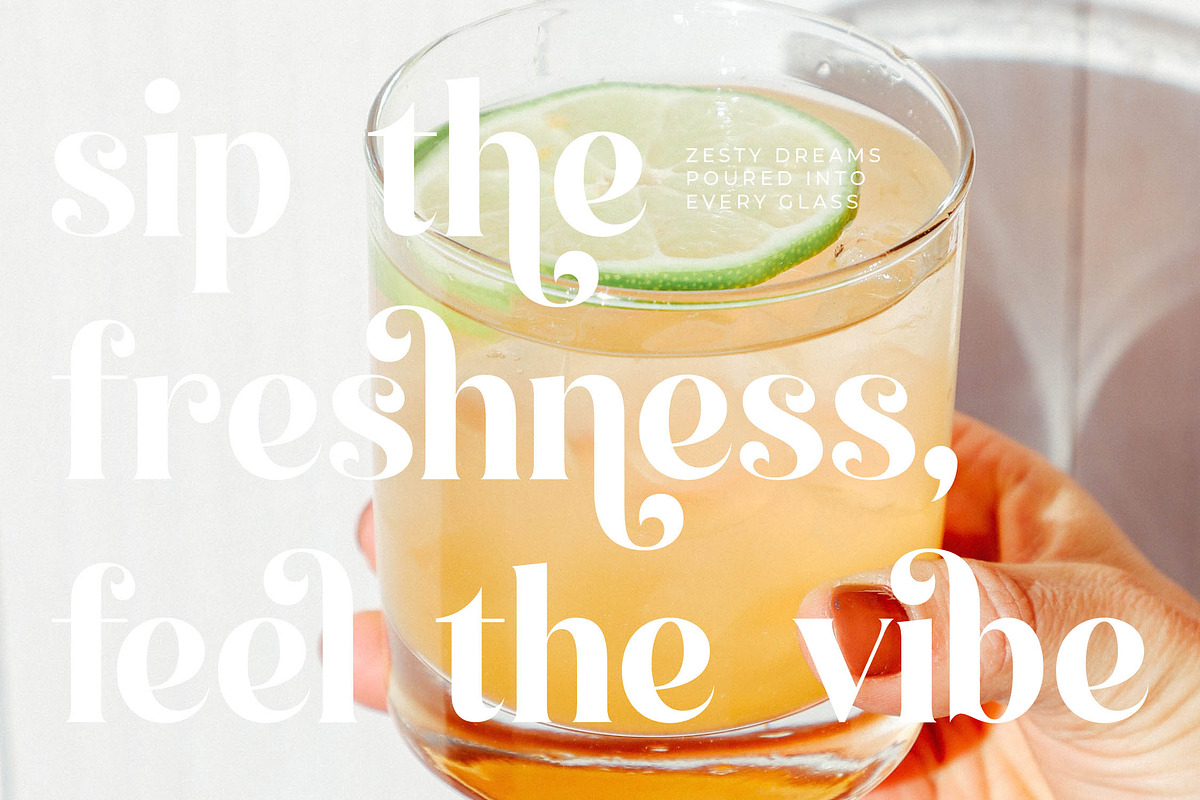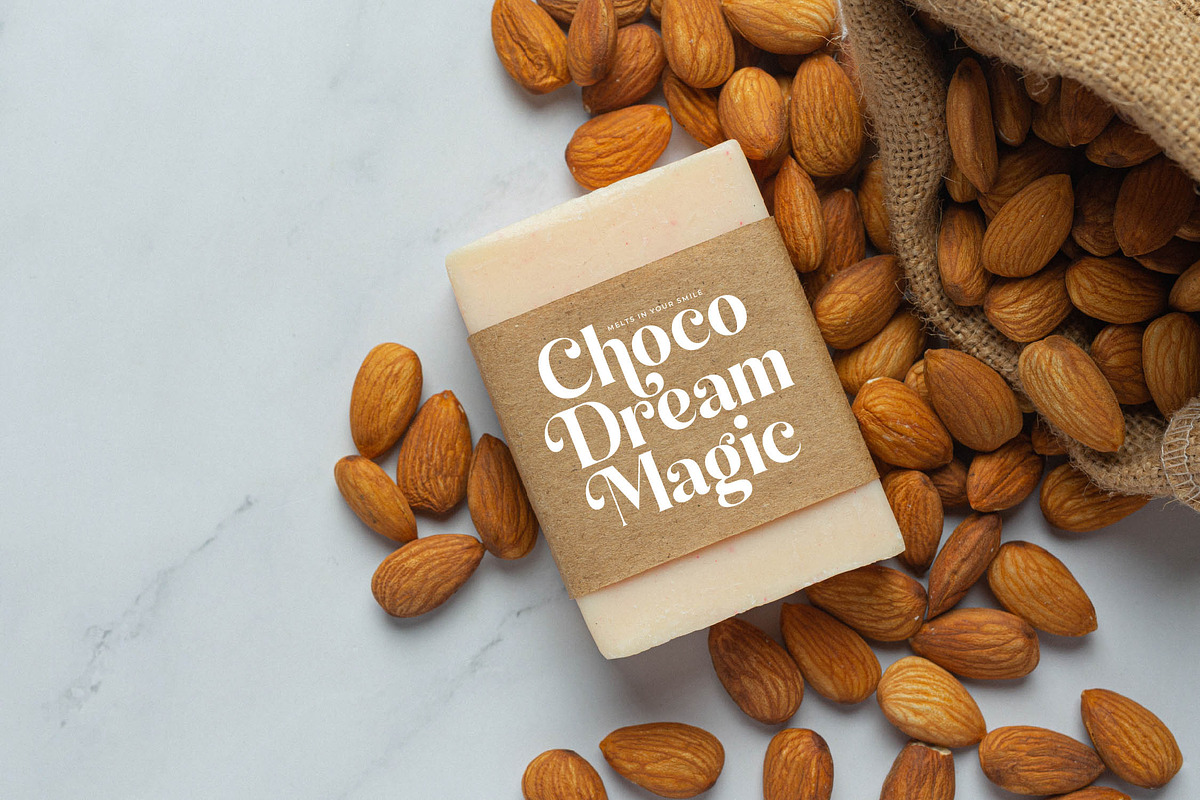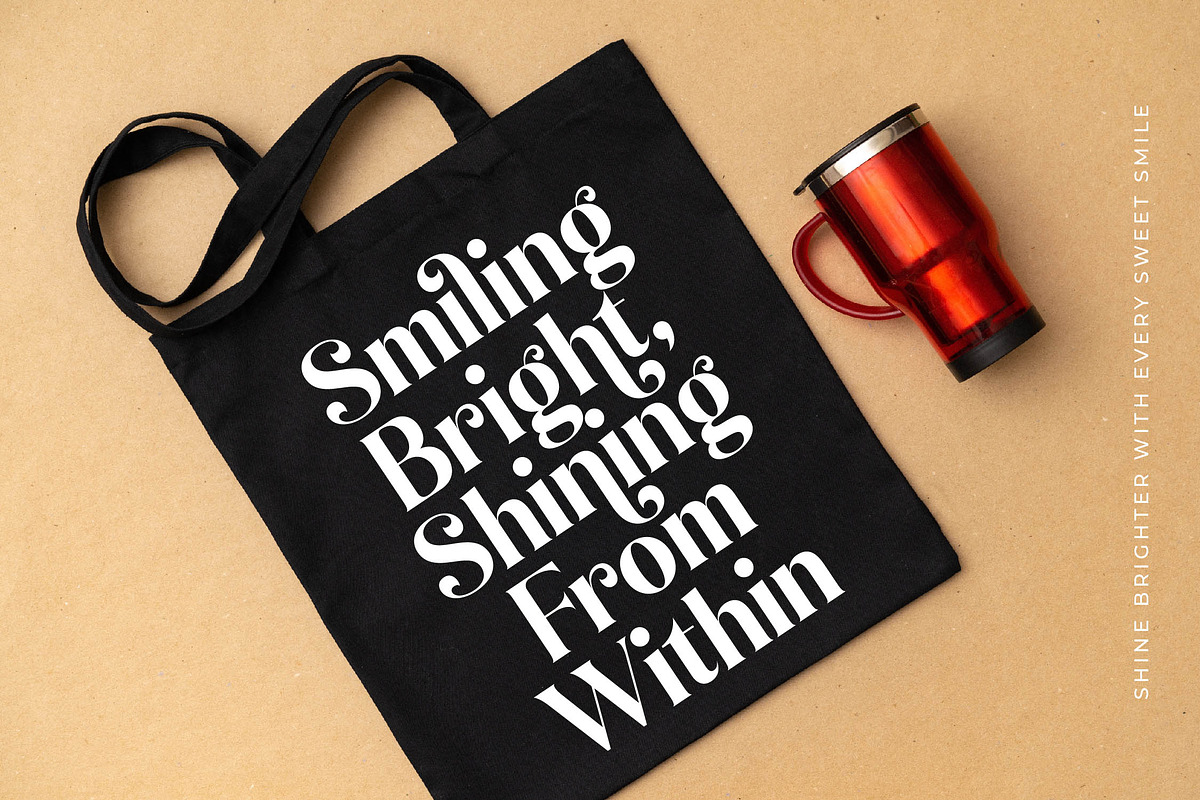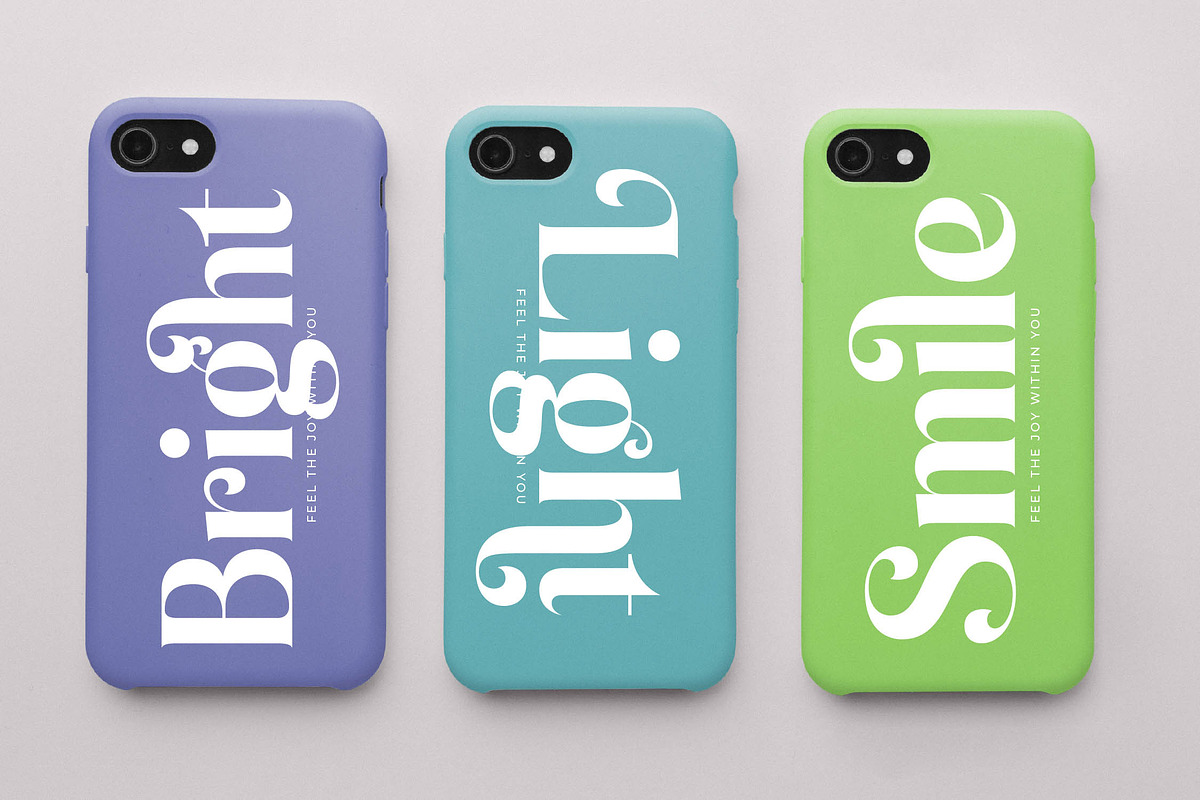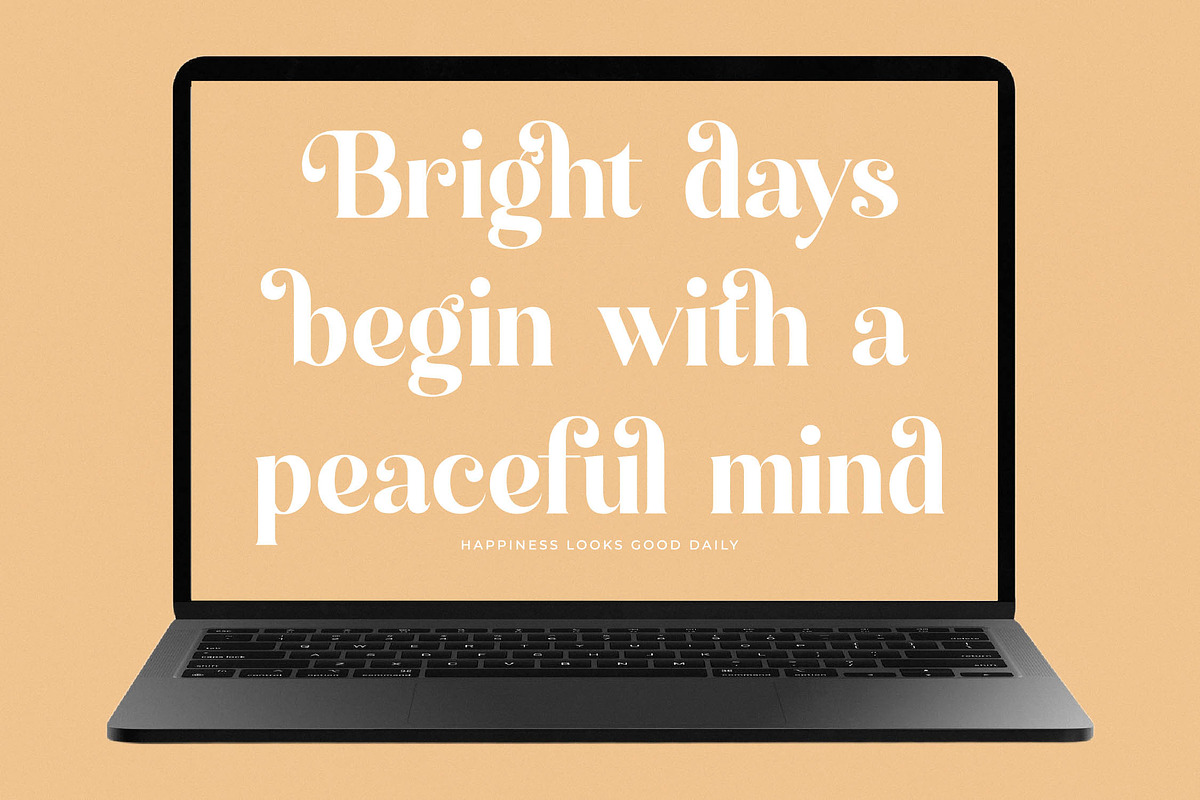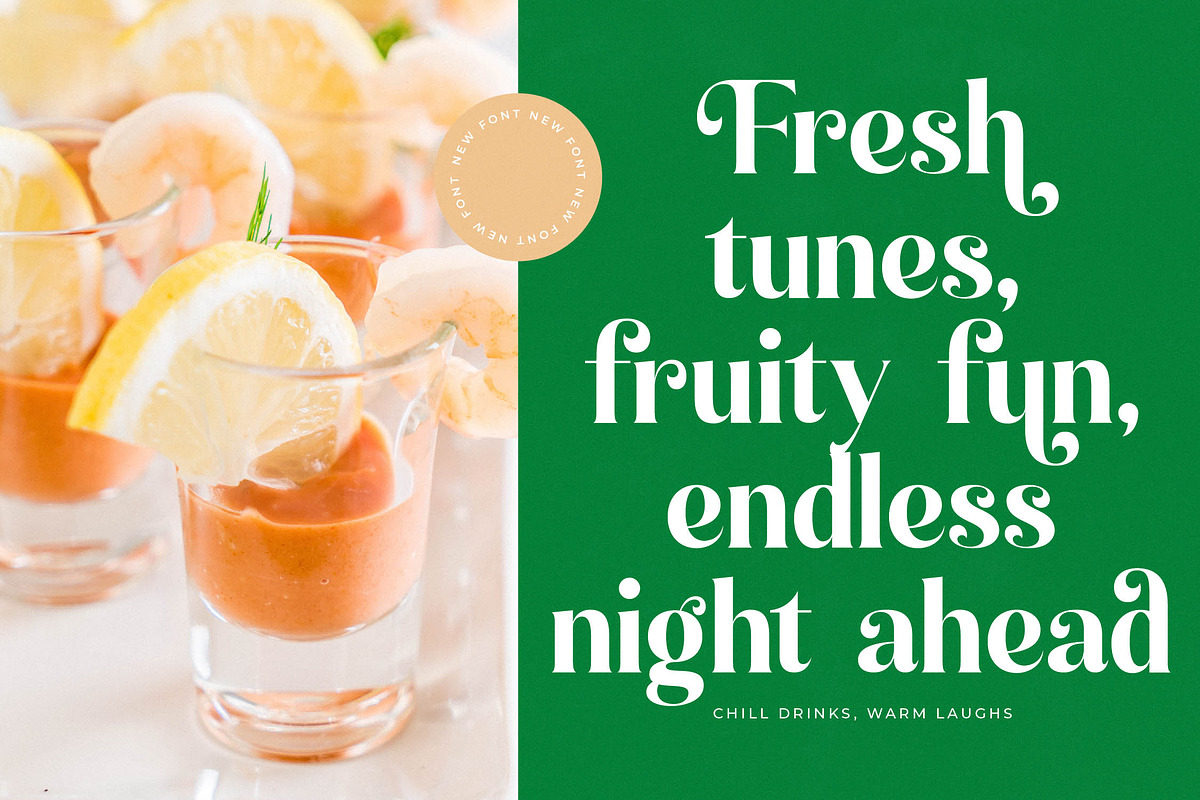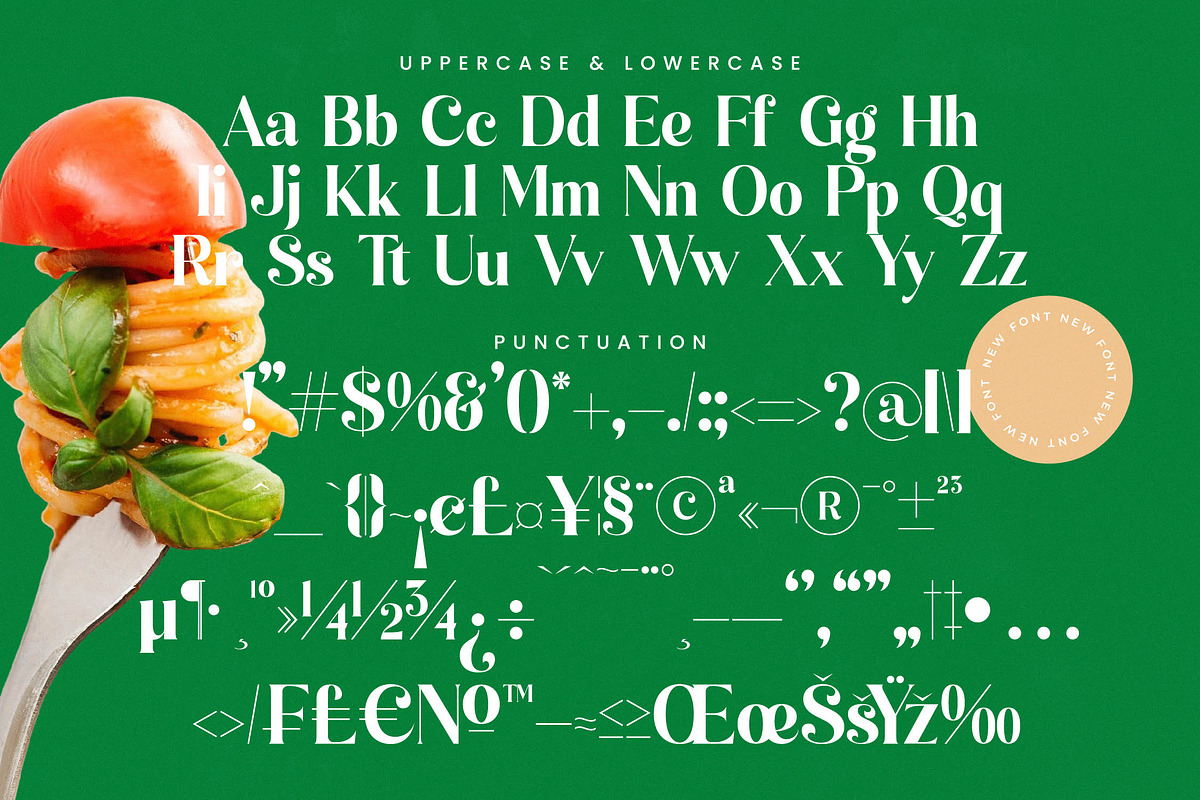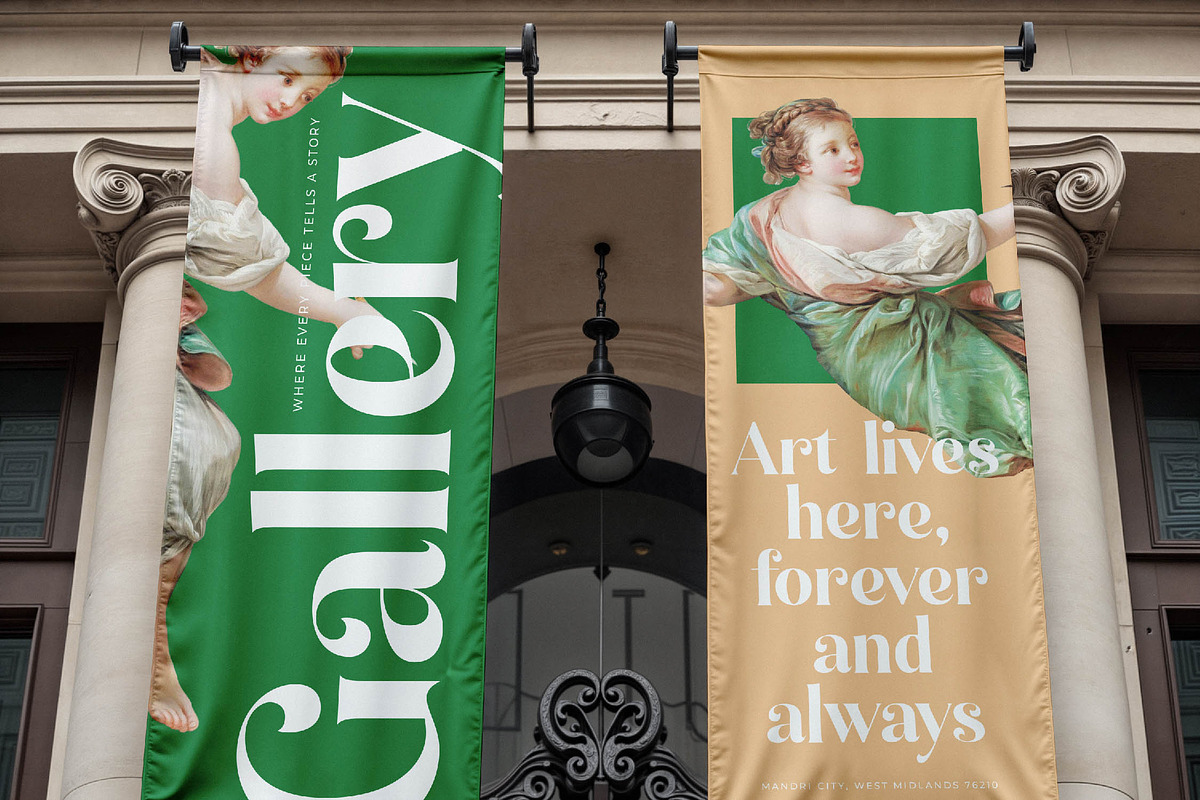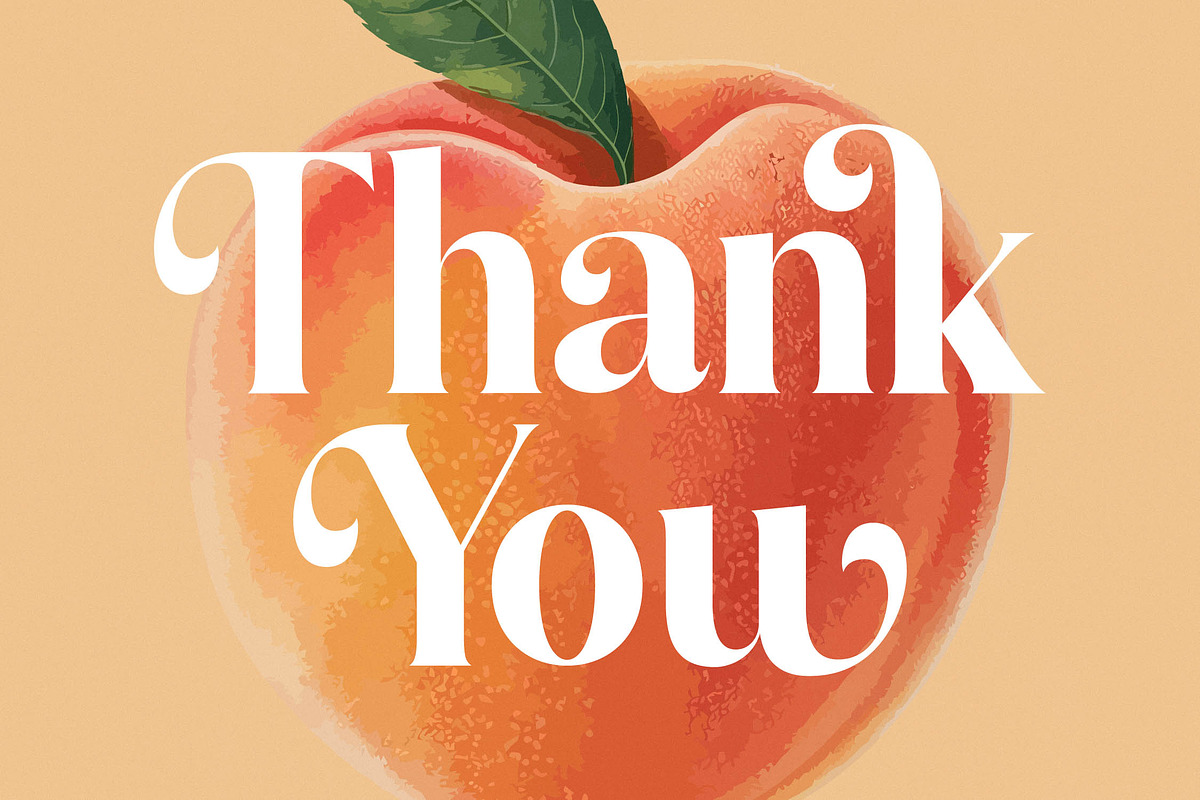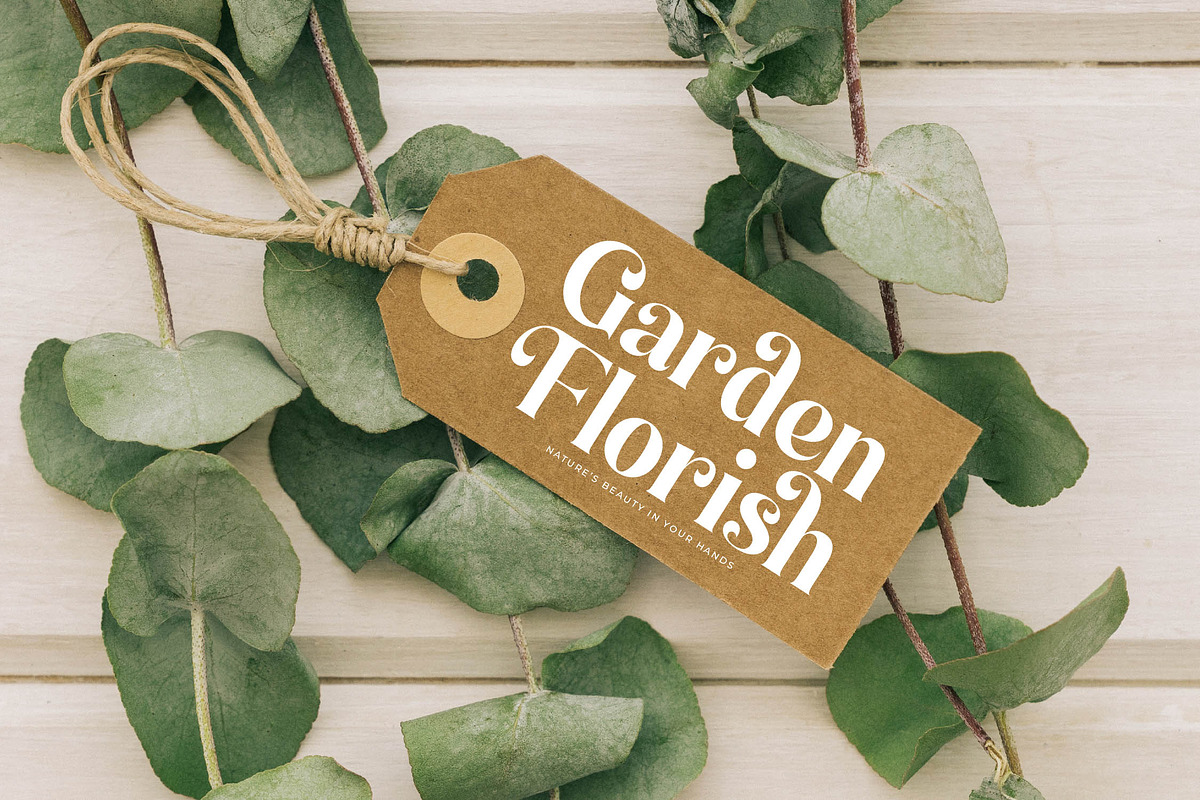
Kindles Swifter Modern Serif Font
Kindles Swifter is a masterclass in contemporary elegance, blending organic curves with a sophisticated structure to redefine modern typography. It captures the essence of high-end design with a playful, yet refined spirit that commands attention on any canvas.
Drawing inspiration from the lush textures of summer harvests and the fluid motions of gourmet artistry, this font evokes a sense of freshness and culinary delight. Its visual language bridges the gap between classic editorial aesthetics and a vibrant, modern lifestyle.
This modern serif display typeface exudes a unique luxury typography vibe that is perfect for creators seeking a high-contrast serif with deep emotional resonance. It is an essential editorial font designed for maximum branding impact, offering a rhythmic flow that feels both nostalgic and forward-thinking.
Aligning perfectly with the current modern serif trend, this typeface stands out among editorial display fonts by embracing character-driven typography. It satisfies the growing market demand for fonts that offer distinct personality without sacrificing professional legibility.
Whether you are crafting a high-end logo design, developing a cohesive branding suite, or laying out a prestige editorial spread, this font adapts beautifully. It is equally at home in gourmet food packaging, romantic wedding stationery, or bold fashion lookbooks.
Each weight is packed with a generous library of ligatures and stylistic alternates that allow for custom-tailored headlines. The extensive set of swashes and full multilingual support ensure that international characters are rendered with the same level of grace and precision.
- Ligature 16 Alternate 61